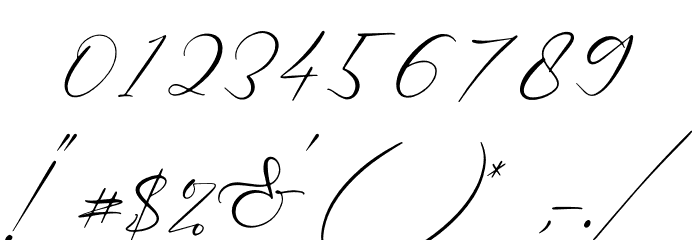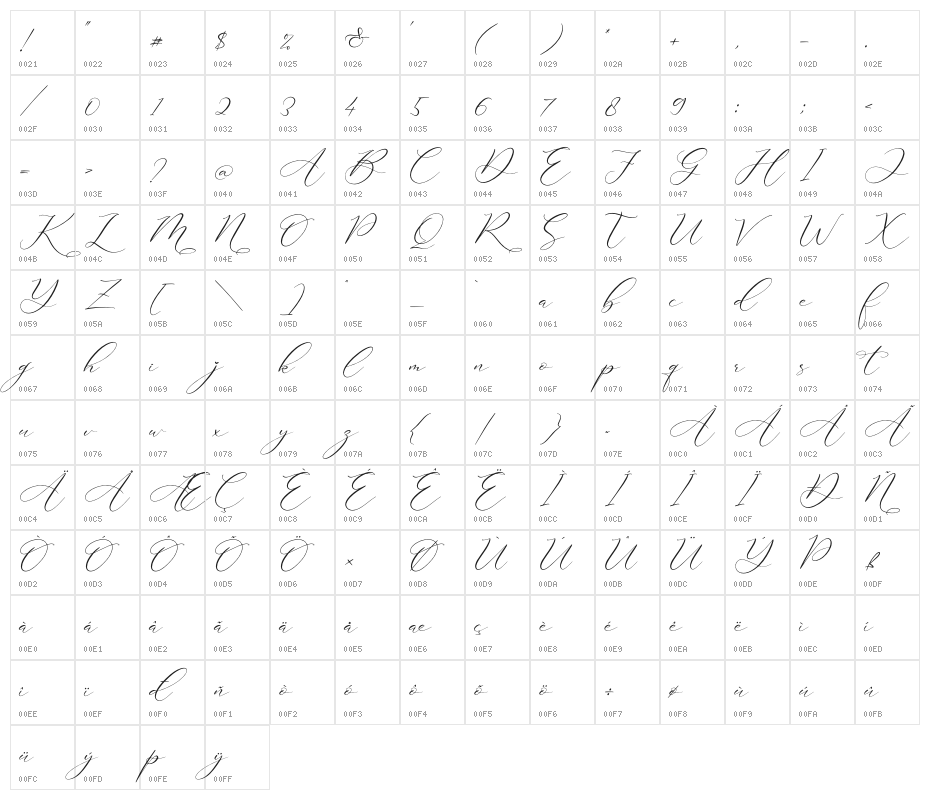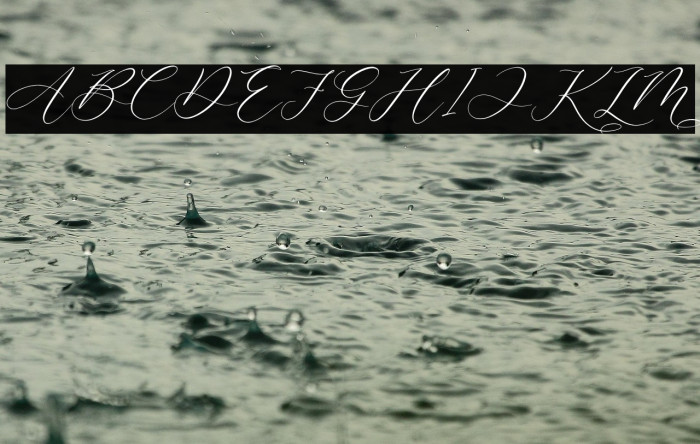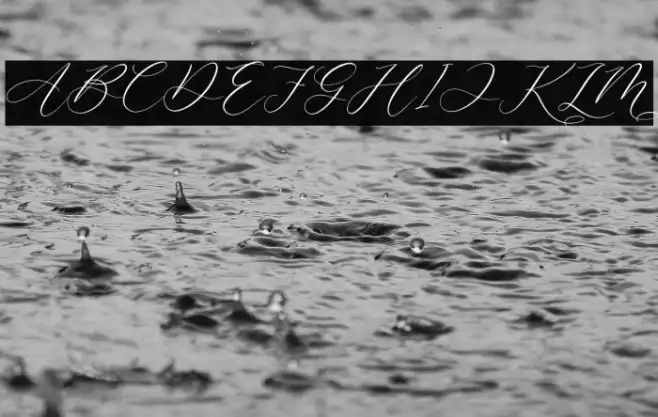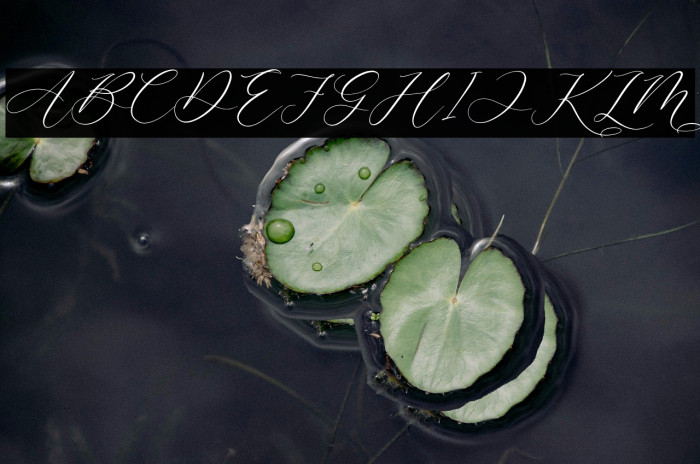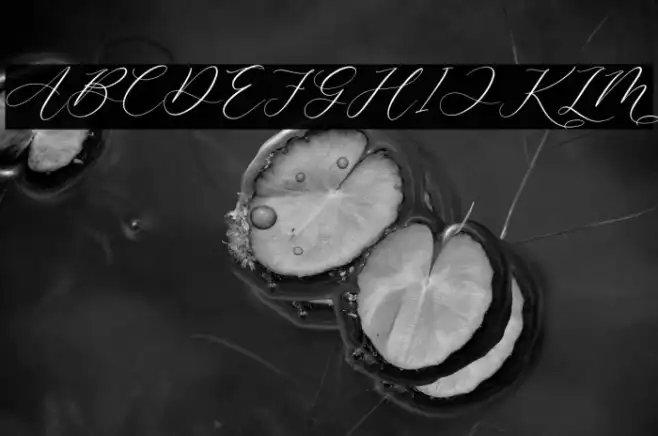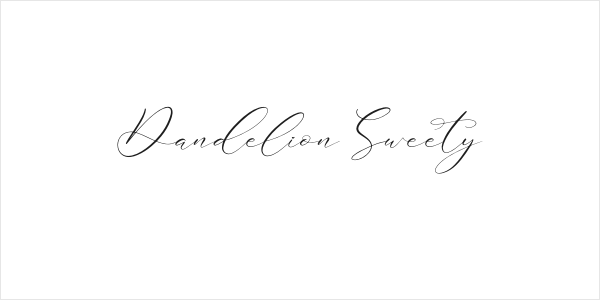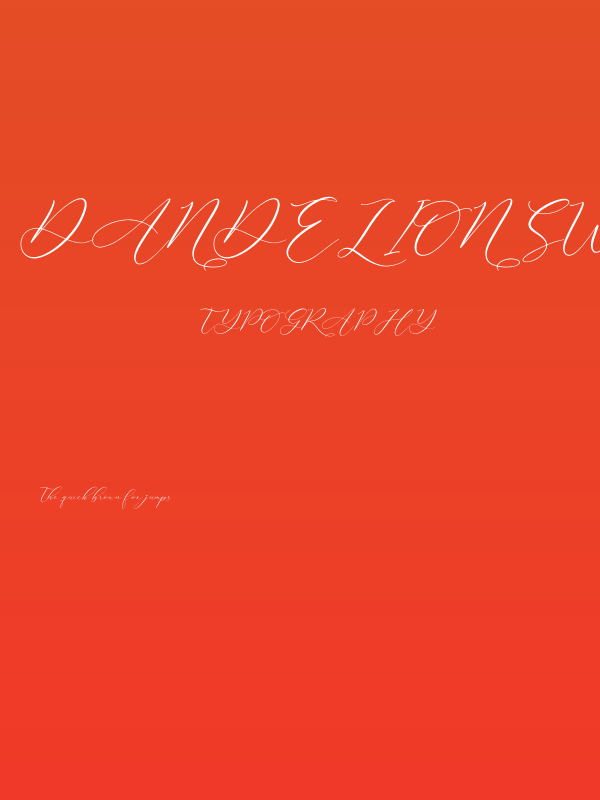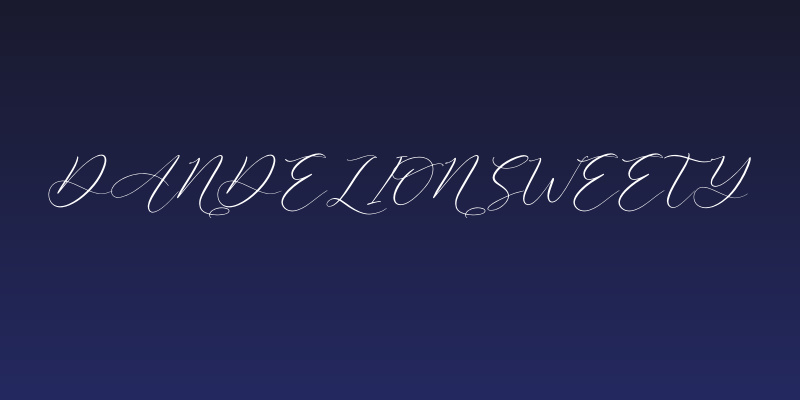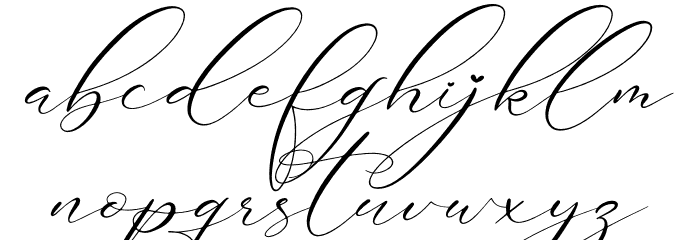
Dandelion Sweety Font
Dandelion Sweety Description
This elegant script font features a flowing, cursive style with a delicate and sophisticated appearance. The letters are interconnected with smooth, sweeping strokes that give it a graceful and romantic feel. The uppercase letters are ornate, with intricate loops and flourishes, while the lowercase letters maintain a consistent fluidity. The numerals and special characters complement the overall design, maintaining the same elegant curves and lines. This font is perfect for adding a touch of elegance and sophistication to any project.
| Overall Style | Elegant, Romantic |
| Proposed Projects | Ideal for wedding invitations, elegant branding, personal stationery, and romantic quotes. |